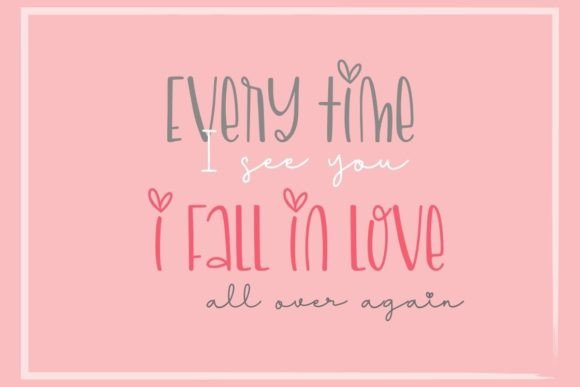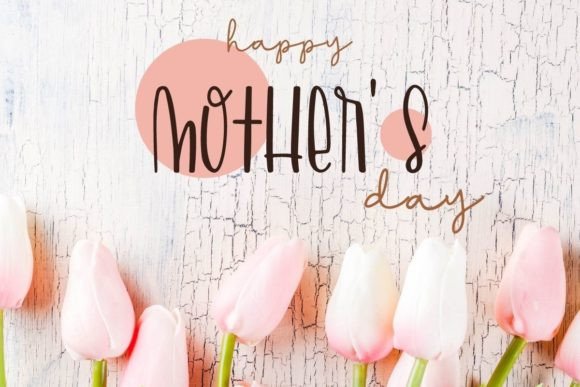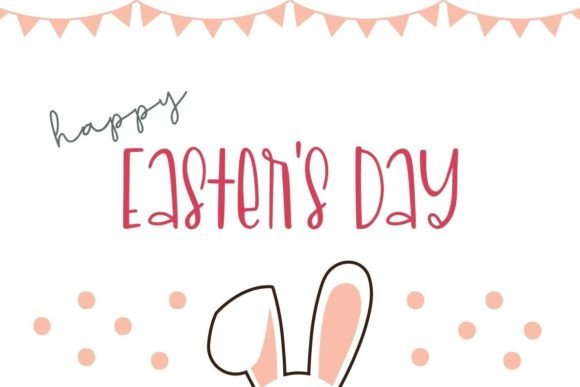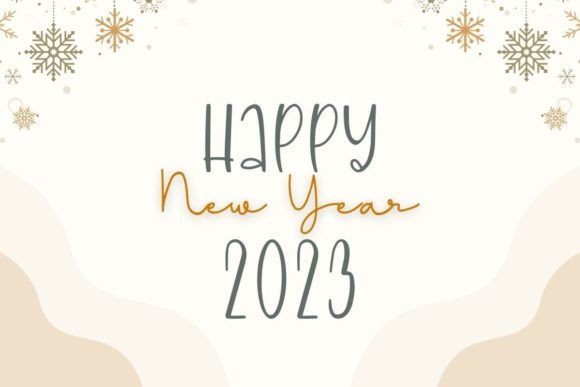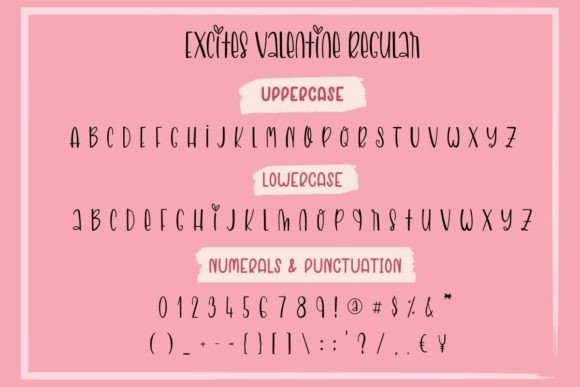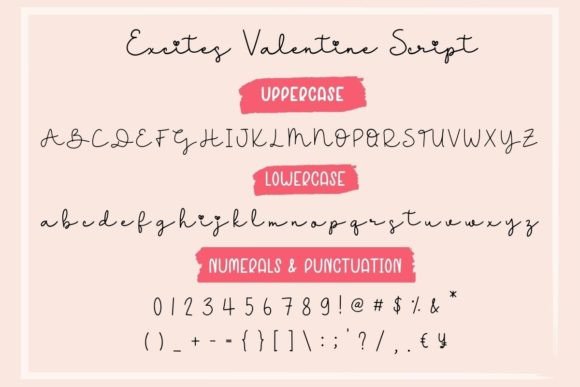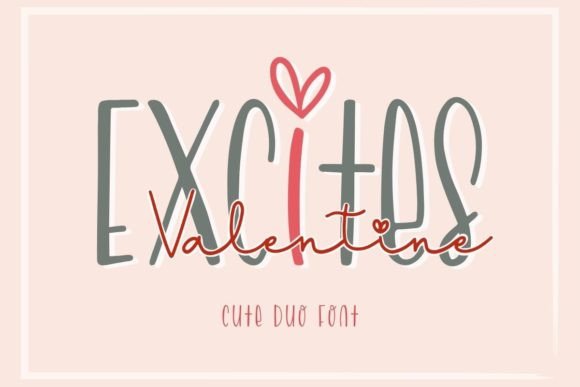
Introducing Excites Valentine Duo Font: The Perfect Pair for Your Creative Projects
Are you a designer, crafter, or DIY enthusiast looking for a unique and captivating font to elevate your creative projects? Look no further than the Excites Valentine Duo Font, a charming handwritten font duo that combines a sans and script font to bring your ideas to life. In this article, we’ll dive into the features and benefits of this exceptional font duo and explore how it can become your new favorite companion for all your creative endeavors.
A Masterful Design: A True Favorite in the Making
The Excites Valentine Duo Font is a meticulously crafted font duo that boasts a distinctive handwritten style, perfect for adding a personal touch to your projects. The sans font is clean and modern, while the script font is elegant and whimsical, making them an ideal pair for a wide range of applications, from romantic getaways to playful crafts. With its exceptional design, this font duo has the potential to become a true favorite among designers, crafters, and DIY enthusiasts alike.
Key Features of Excites Valentine Duo Font
- Cute Handwritten Style: The Excites Valentine Duo Font features a delightful handwritten style that’s perfect for creating unique and eye-catching projects.
- Font Duo: This font duo includes both a sans and script font, providing you with endless possibilities for creative expression.
- High-Quality Design: Masterfully designed to ensure exceptional quality and consistency, making it perfect for both personal and commercial use.
The Excites Valentine Duo Font is an incredibly versatile font duo that can be used in a wide range of creative projects, including:
- Stationery and Invitations: Create beautiful wedding invitations, birthday cards, and other stationery with a personal touch.
- Branding and Packaging: Elevate your brand with a unique and memorable font that sets you apart from the competition.
- Crafts and DIY Projects: Add a touch of personality to your craft projects, such as scrapbooking, sewing, and woodworking.
- Digital Products: Use the Excites Valentine Duo Font to create engaging digital products, such as printable art, planners, and more.
Why Choose Excites Valentine Duo Font?
With so many fonts available, why choose the Excites Valentine Duo Font? Here are just a few reasons why this font duo stands out:
- Unique and Eye-Catching: The Excites Valentine Duo Font is a one-of-a-kind font duo that’s sure to grab attention and leave a lasting impression.
- Highly Versatile: With both a sans and script font, you can use this font duo in a wide range of projects, from formal to playful.
- Exceptional Quality: Masterfully designed to ensure exceptional quality and consistency, making it perfect for both personal and commercial use.
Get Ready to Fall in Love with Excites Valentine Duo Font
If you’re looking for a font duo that will take your creative projects to the next level, look no further than the Excites Valentine Duo Font. With its unique handwritten style, high-quality design, and endless creative possibilities, this font duo is sure to become your new favorite companion. So why wait? Get ready to fall in love with the Excites Valentine Duo Font and bring your creative ideas to life in a way that’s both beautiful and captivating.